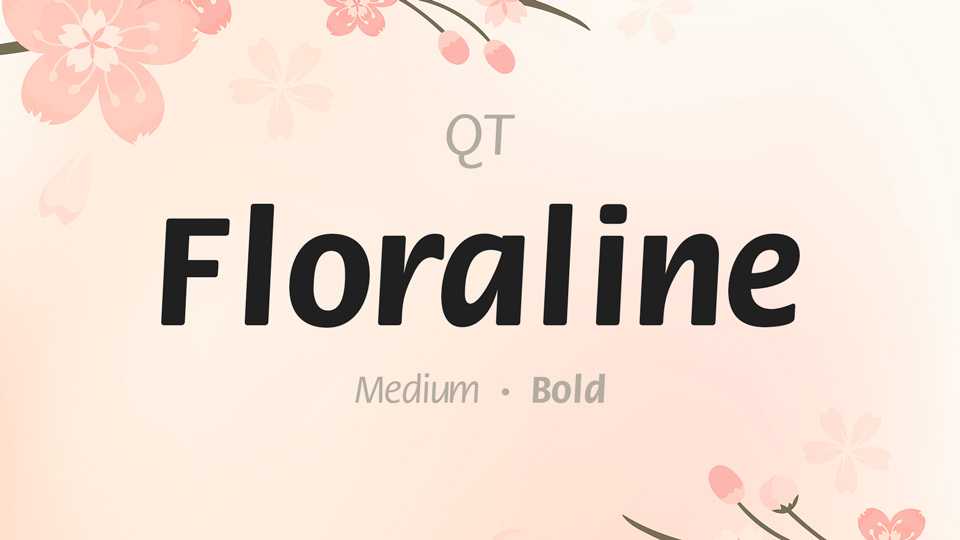
Download Floraline typeface, a sans serif font family in two weights which design imparts grace and movement. Floraline was also intentionally designed to be simple and sturdy, and with its minimal variation in thick/thin stroke ratio.